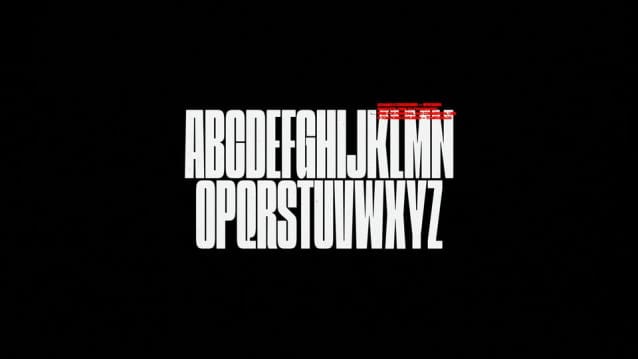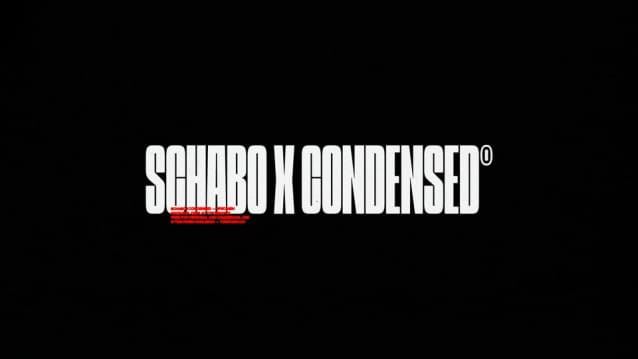
Schabo X Condensed Font
Schabo X Condensed Font is a bold and strong condensed sans serif font that commands attention with its sharp lines and compact design. The font is designed to exude power and confidence, making it perfect for headlines, titles, and impactful branding materials.
With its sleek and condensed style, Schabo X Condensed is ideal for projects that demand a sense of strength and authority. Whether you’re designing posters, logos, or bold statements, this font adds a contemporary edge that grabs the attention and leaves a lasting impression.